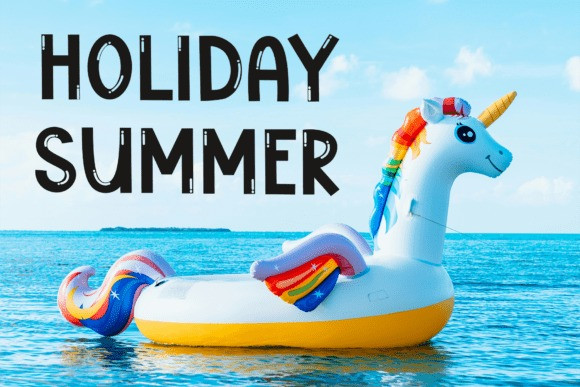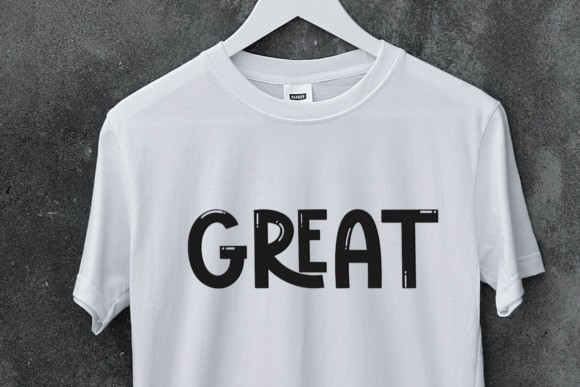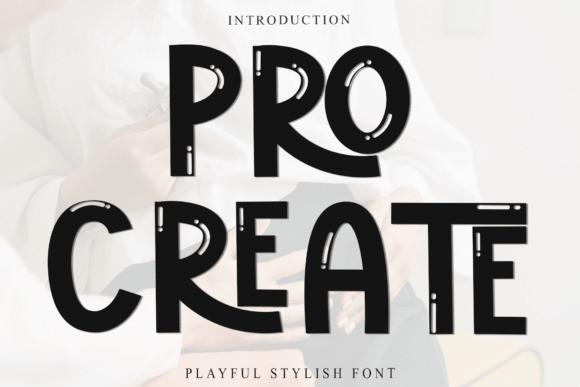
Pro Create Font
Pro Create Font is a sweet and friendly handwritten font. Its natural and unique style makes it incredibly fitting to a large pool of designs. The only limit is your imagination!